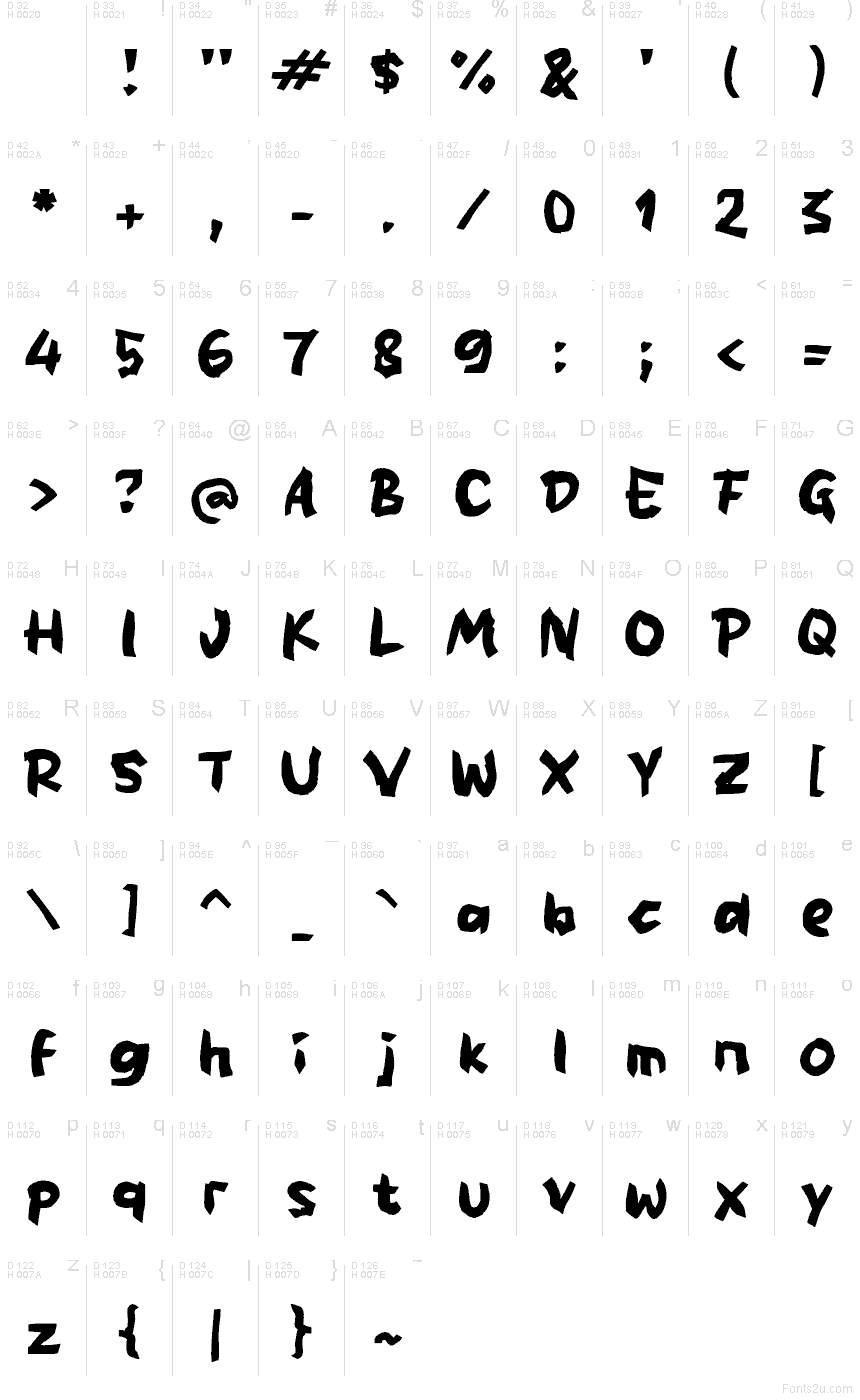
Qaaboo
Qaaboo font by wep is a free graffiti font that captures the rush of marker ink hitting a wall. Its chunky, rounded strokes look hand-scrawled and a bit unruly, with edges that feel like they’ve bled slightly into paper or concrete. The letters bounce along the line with an easy swagger, creating a loose rhythm that feels fast, energetic, and unapologetically bold.
Using Qaaboo, this free font shines on streetwear logos, hip-hop flyers, youth event posters, YouTube thumbnails, stickers, and bold social graphics. The dense shapes hold up well at larger sizes, where the inky texture really comes through. Pair Qaaboo with a clean, narrow sans serif for small captions to keep layouts readable while the graffiti forms do the loud talking.